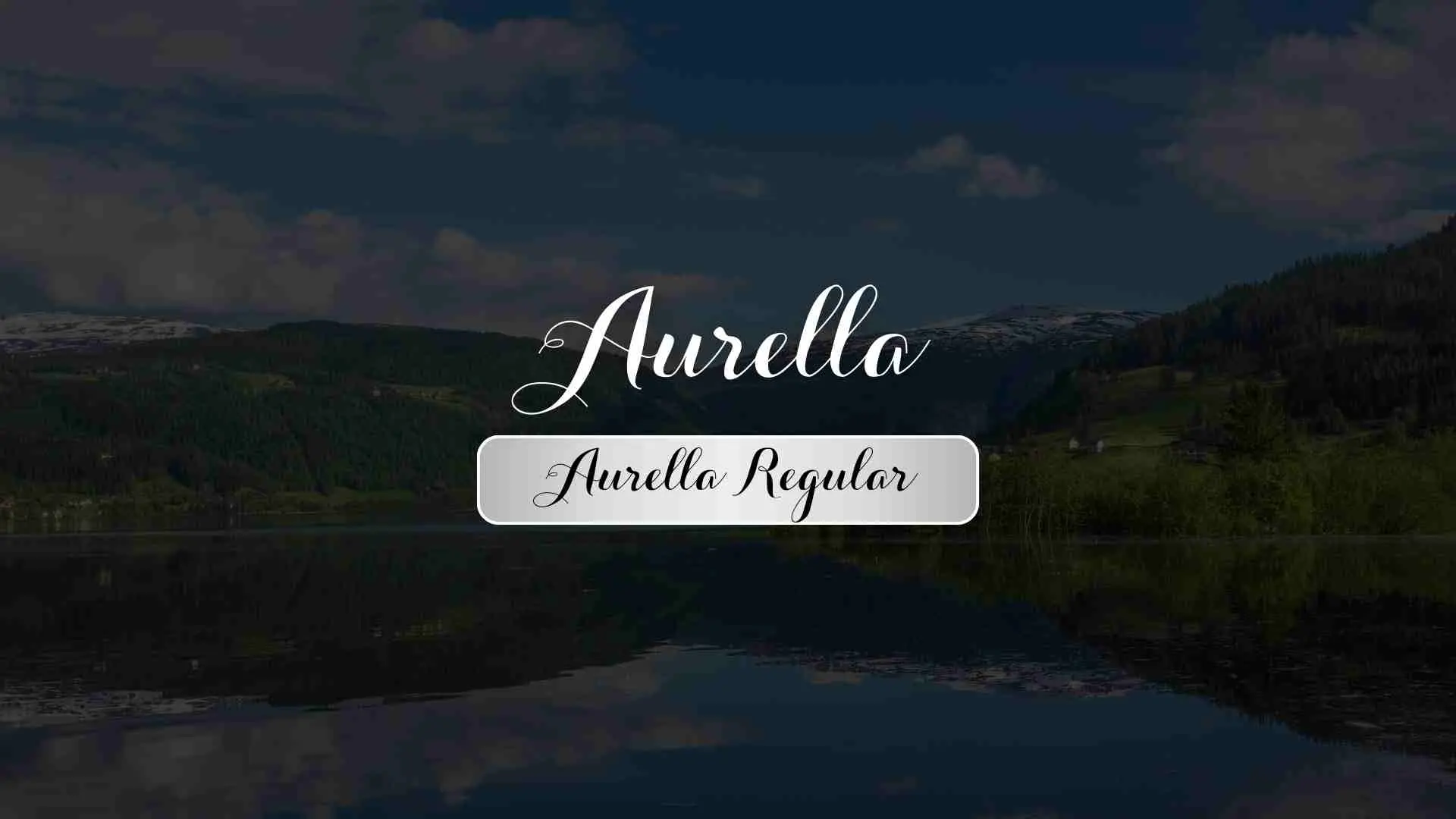
The font Aurella Regular, designed by Fontdation Studio, falls under the Script category & Aurella font family. Its smooth, flowing letterforms make it a versatile choice for projects that require both elegance and readability. Aurella is particularly well-suited for Wedding Invitations, Advertising, Social media graphics, Branding and Logos and Signage and wayfinding. With its balance of simplicity and decorative appeal, this font brings a polished touch to both personal and professional designs.